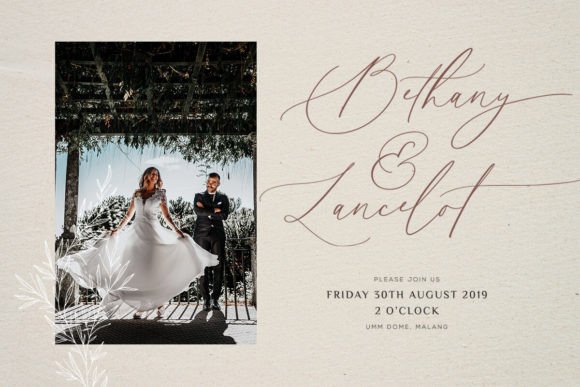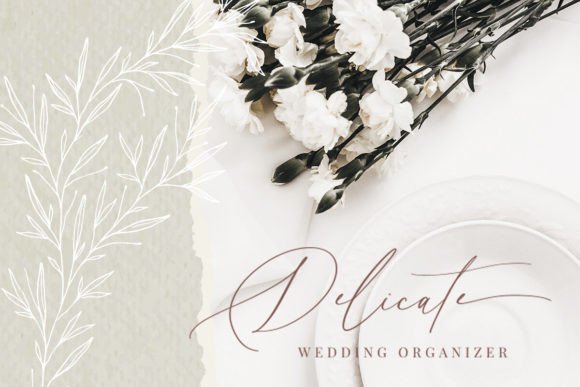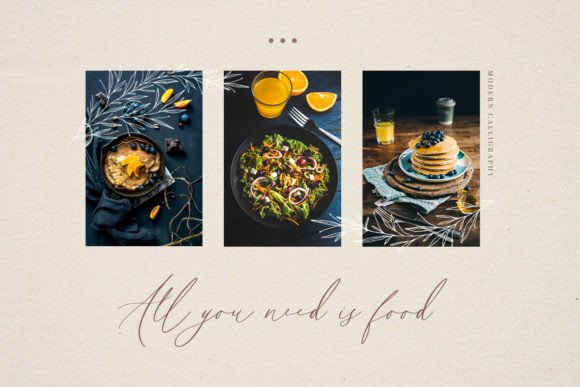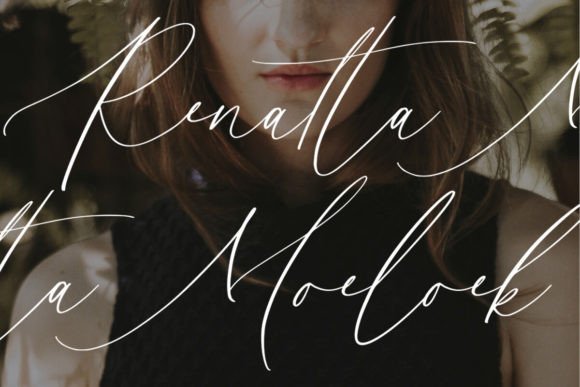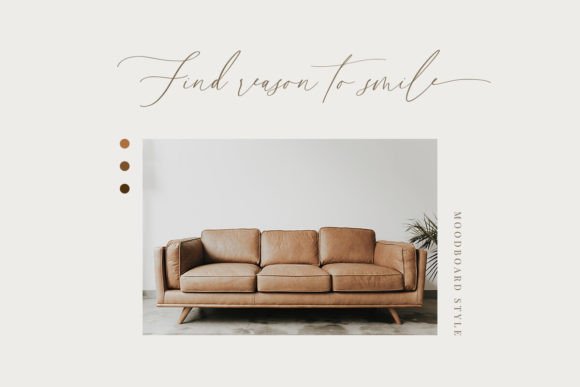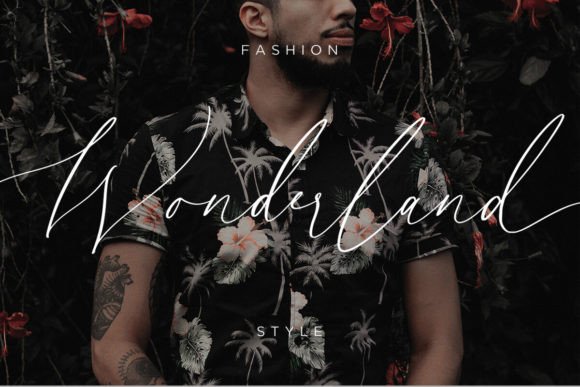
Introduction to Senja Mentari Font
As you sit at your desk, surrounded by scattered papers, half-finished designs, and endless cups of coffee, you finally find the perfect font to elevate your creative project. The moment you download the Senja Mentari Font, you know you’ve found a game-changer. This elegant modern calligraphy font is inspired by delicate inky hand lettering, gorgeous wedding calligraphy, and trending minimal branding designs.
The Senja Mentari Font is more than just a design resource – it’s a high-quality tool that can take your designs to the next level. With its transparent background and beautiful, flowing lines, it’s perfect for creating stunning wedding invitations, cards, and feminine branding. Whether you’re a seasoned designer or just starting out, this font pair is a valuable addition to your toolkit.
Key Features of Senja Mentari Font
- Unique, elegant design perfect for creative projects and personal branding.
- High-quality, professional font ideal for use as a design resource in various applications.
- Includes transparent background option for seamless integration with images and videos.
- Designed with a clean and modern aesthetic, making it suitable for a wide range of creative projects.
Honest Review: Senja Mentari Font
I recently had the chance to experiment with the Senja Mentari Font, and I must say it’s a wonderful addition to any design resource collection. ✨ One of the standout features is its high quality, making it perfect for creative projects that require a touch of elegance.
Here are some of the things that work well with the Senja Mentari Font:
- Transparent background for easy use in various design scenarios
However, I do have a few suggestions for improvement:
- ⚠️ Limited font styles, which may limit its versatility in certain design scenarios
- ⚠️ May not be suitable for projects that require bold or dramatic typography
Overall, I’m impressed with the Senja Mentari Font and would definitely recommend it to designers looking for a high-quality, elegant font for their creative projects.
Introduction to Senja Mentari Font
The Senja Mentari Font is a high-quality, free design resource perfect for any creative project. This versatile font features a unique and elegant design that can be used in various contexts, from digital to print media.
Tips for Getting the Most Out of Senja Mentari Font
Use the Senja Mentari Font with a transparent background to add a touch of elegance to your designs.
Experiment with different font sizes and styles to create a unique and eye-catching design.
Common Use Cases for Senja Mentari Font
The Senja Mentari Font is perfect for:
Creating elegant business cards and stationery.
Designing beautiful wedding invitations and event materials.
Adding a touch of sophistication to your website and social media
Alternatives to Senja Mentari Font
Pacifico is a high-quality, elegant script font that is perfect for creative projects requiring a touch of sophistication. Its transparent background and refined lines make it an excellent choice for designing invitations, greeting cards, and other formal materials.
Compared to Senja Mentari Font, Pacifico has a more classic and refined feel, while Senja Mentari Font has a more modern and minimalist approach. Pacifico is ideal for those seeking a timeless and sophisticated look.
Great Vibes is a beautiful, handwritten font that is ideal for creative projects requiring a unique and expressive touch. Its high-quality design and transparent background make it perfect for designing quotes, posters, and other visual materials.